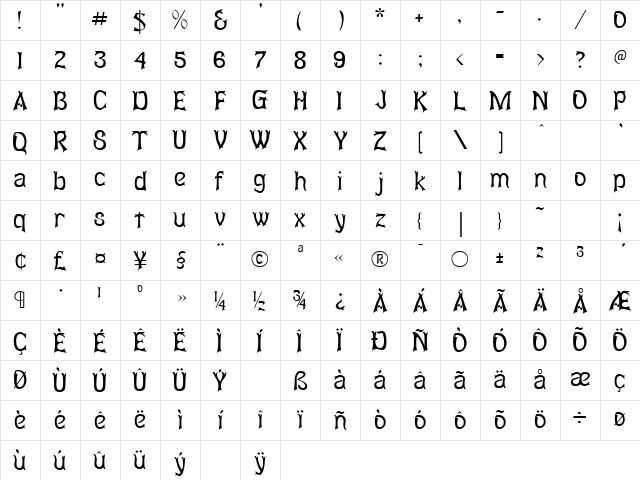
AbagailJackson Regular Free Font
AbagailJackson Regular
Design Context for AbagailJackson
AbagailJackson is a composed and adaptable typeface that performs quietly and consistently across a wide range of design contexts.